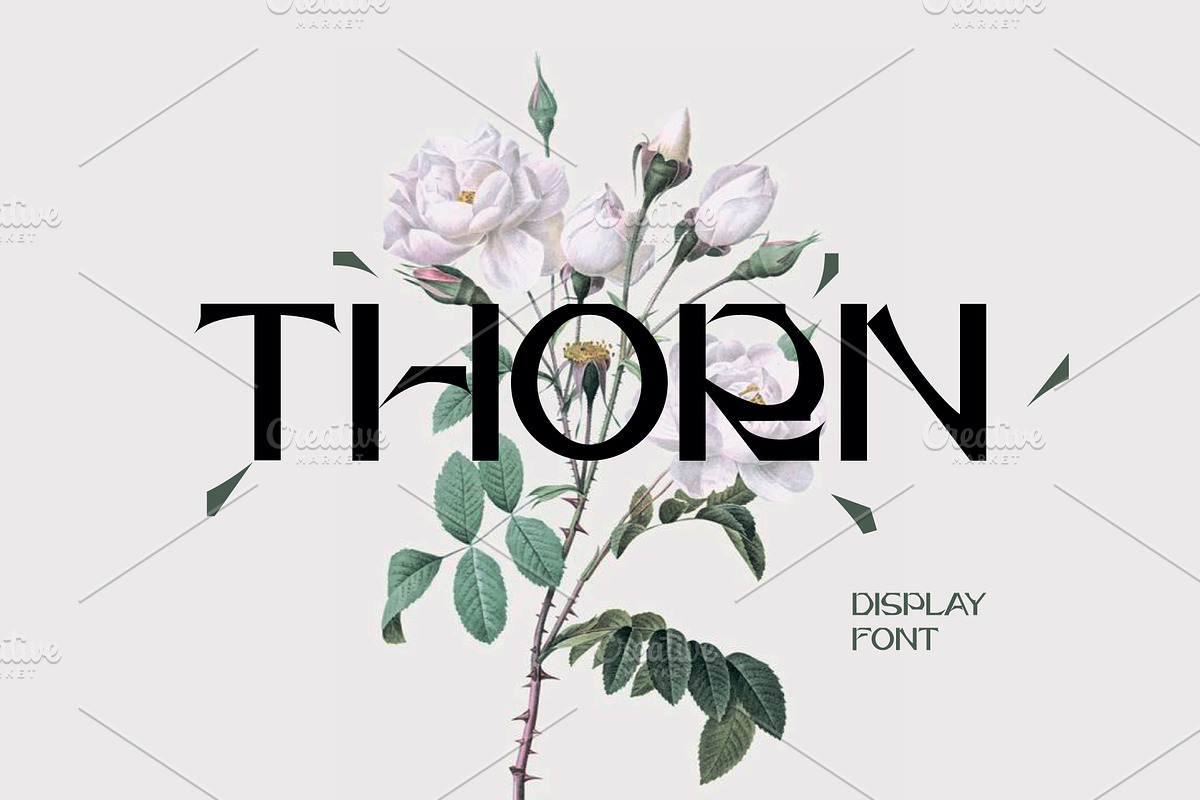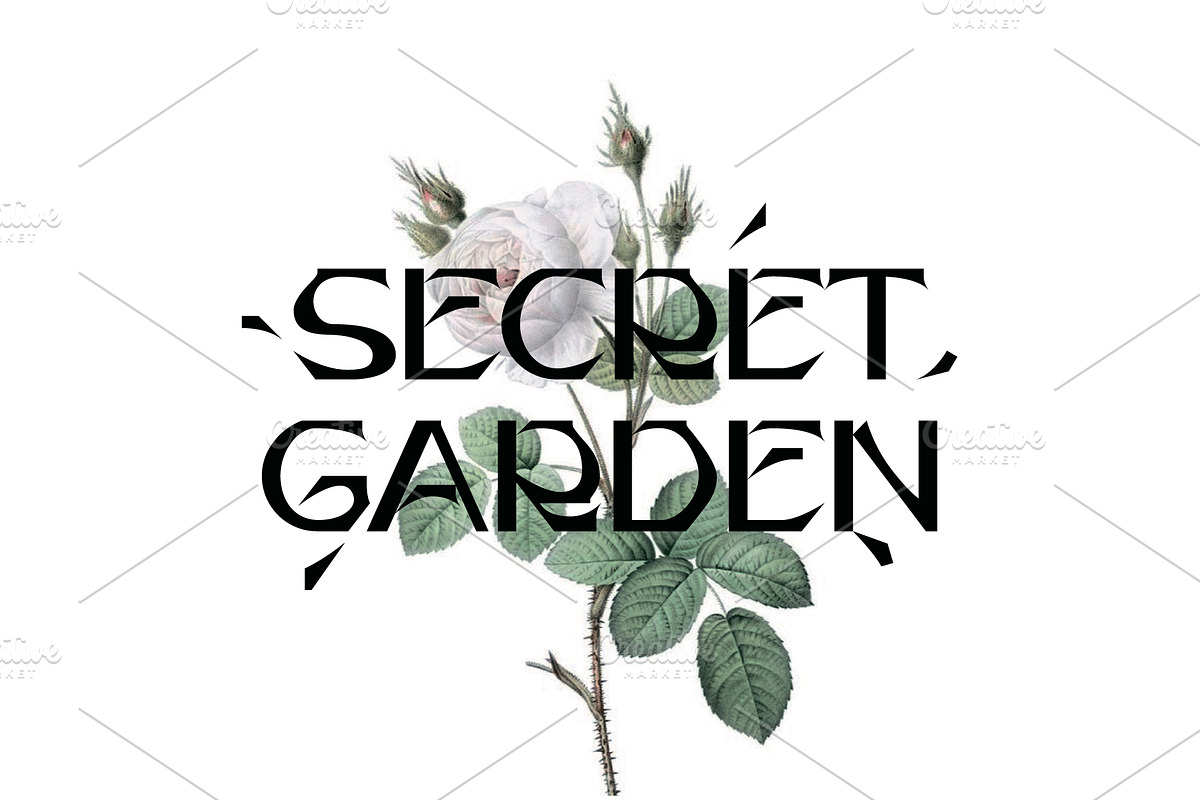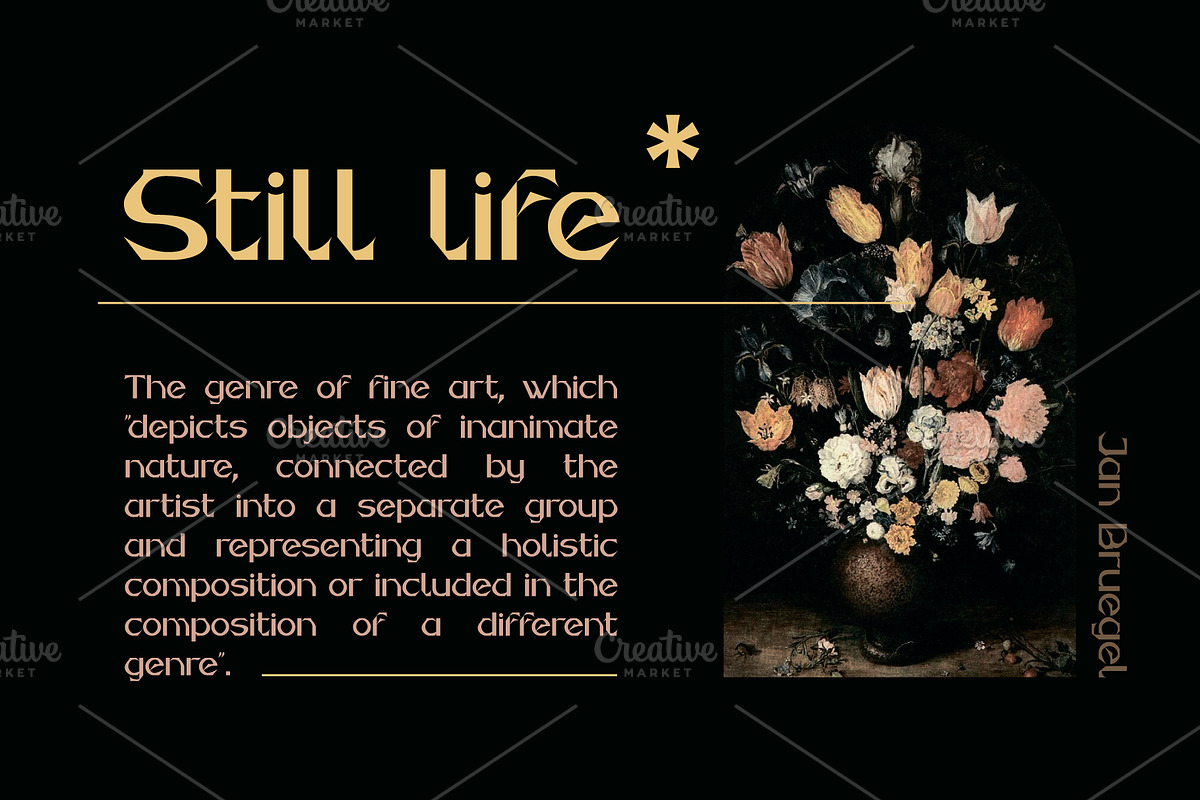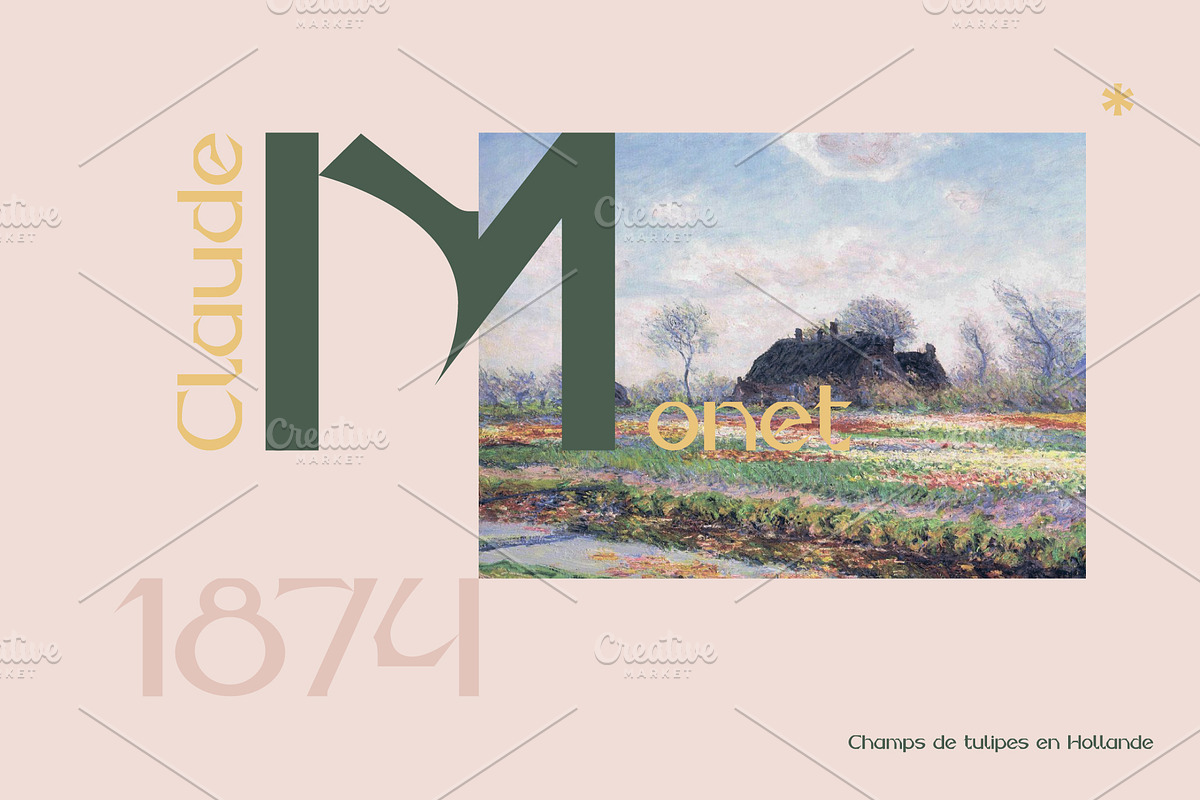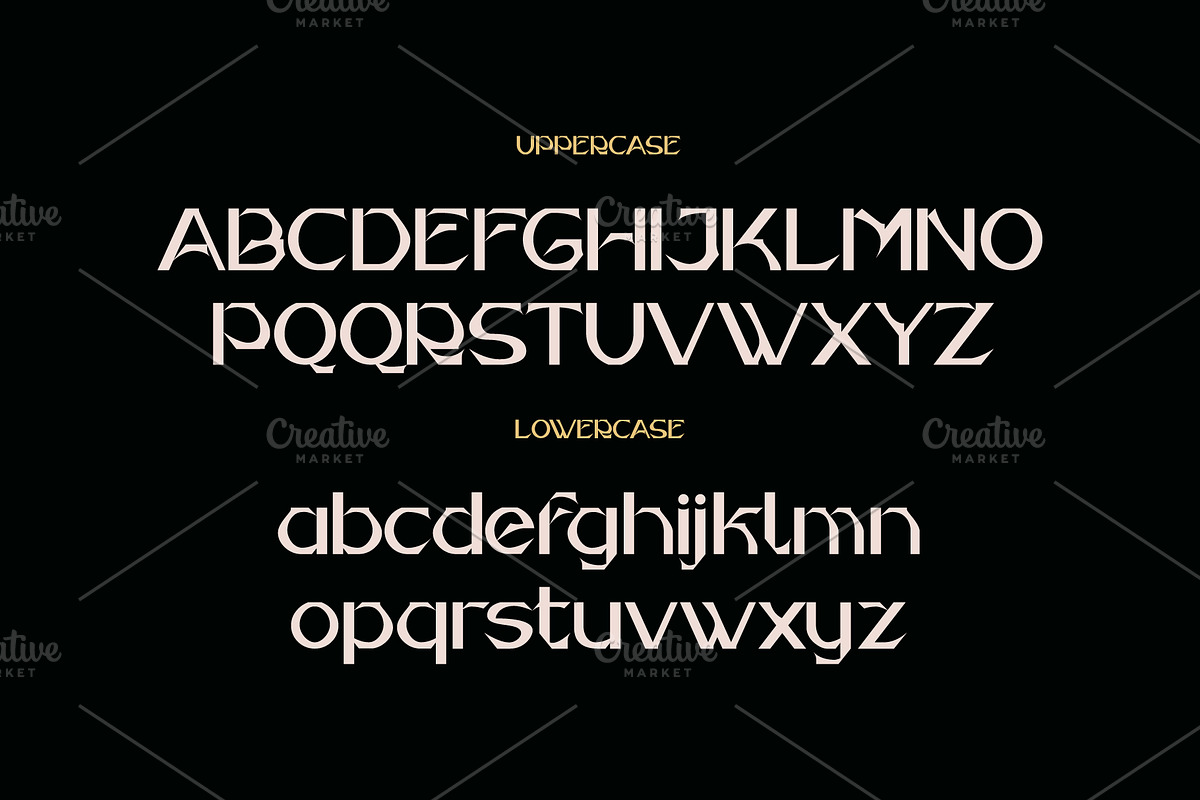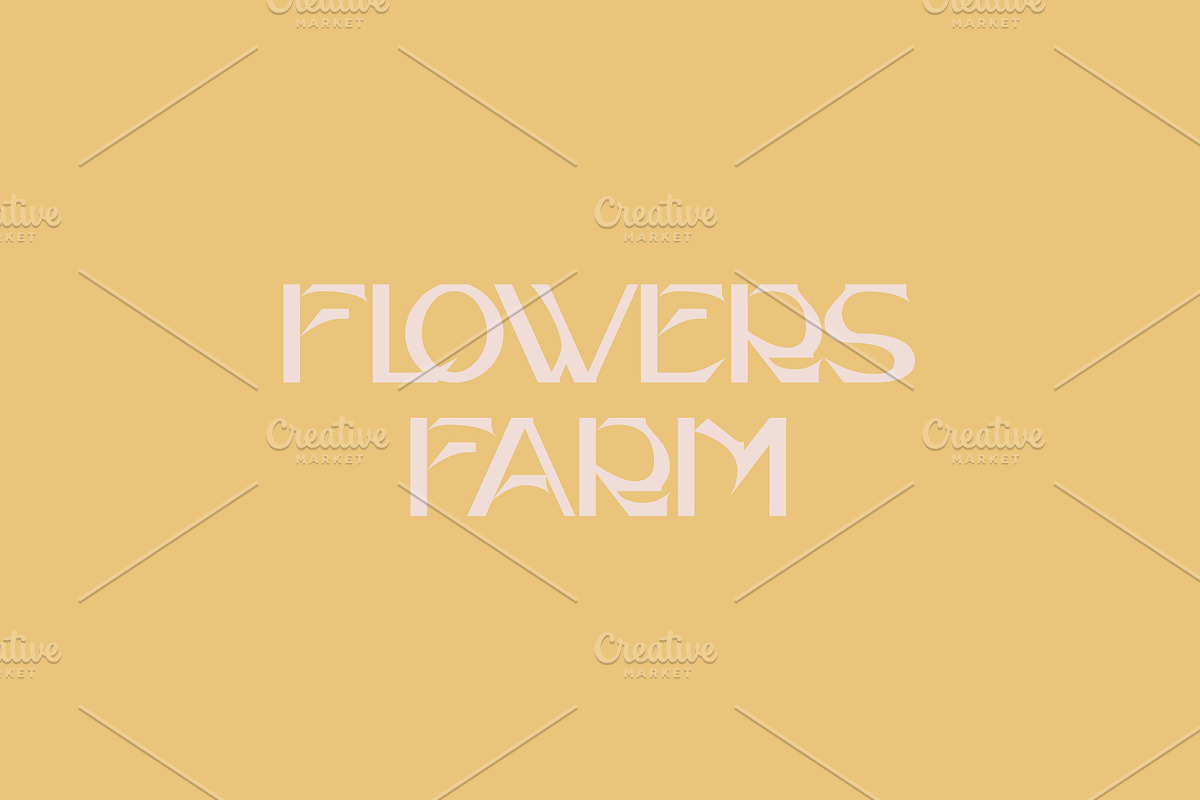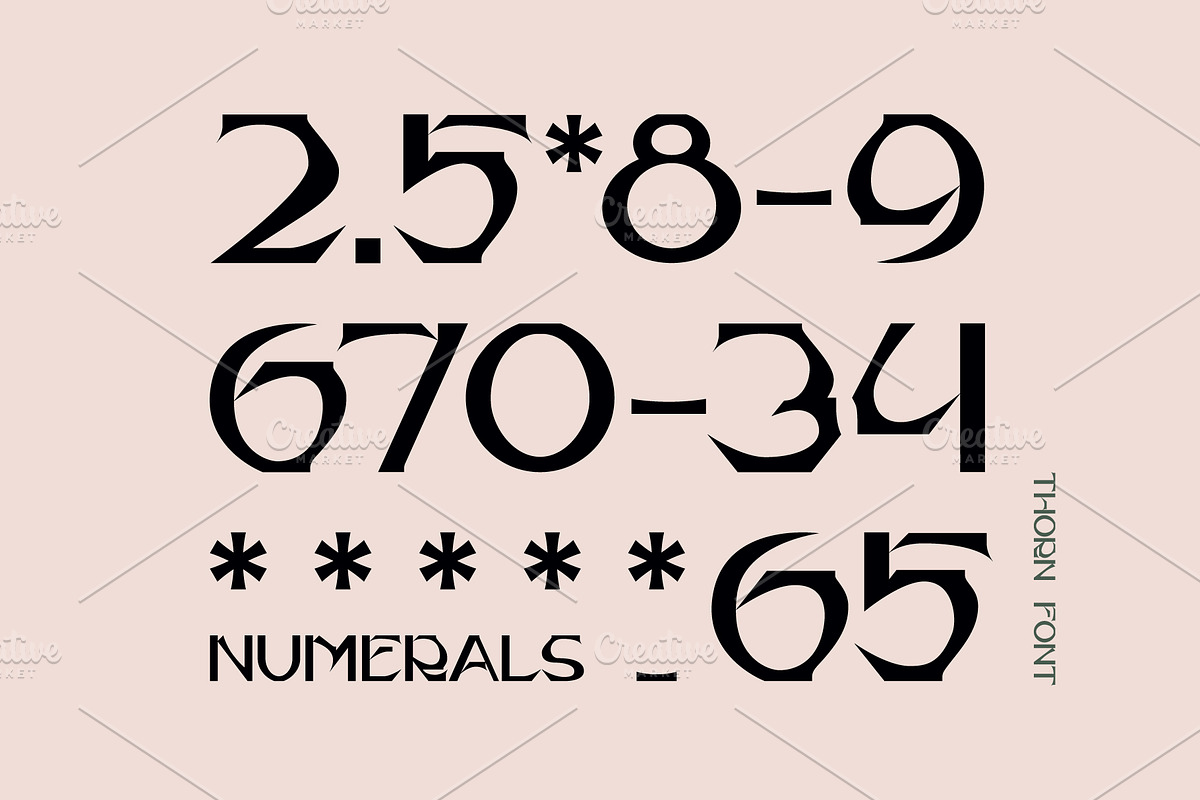
Thorn Font
Thorn is a sans serif font with sharp angles inspired by plant forms. It has expressive forms of capital letters and is suitable for display.